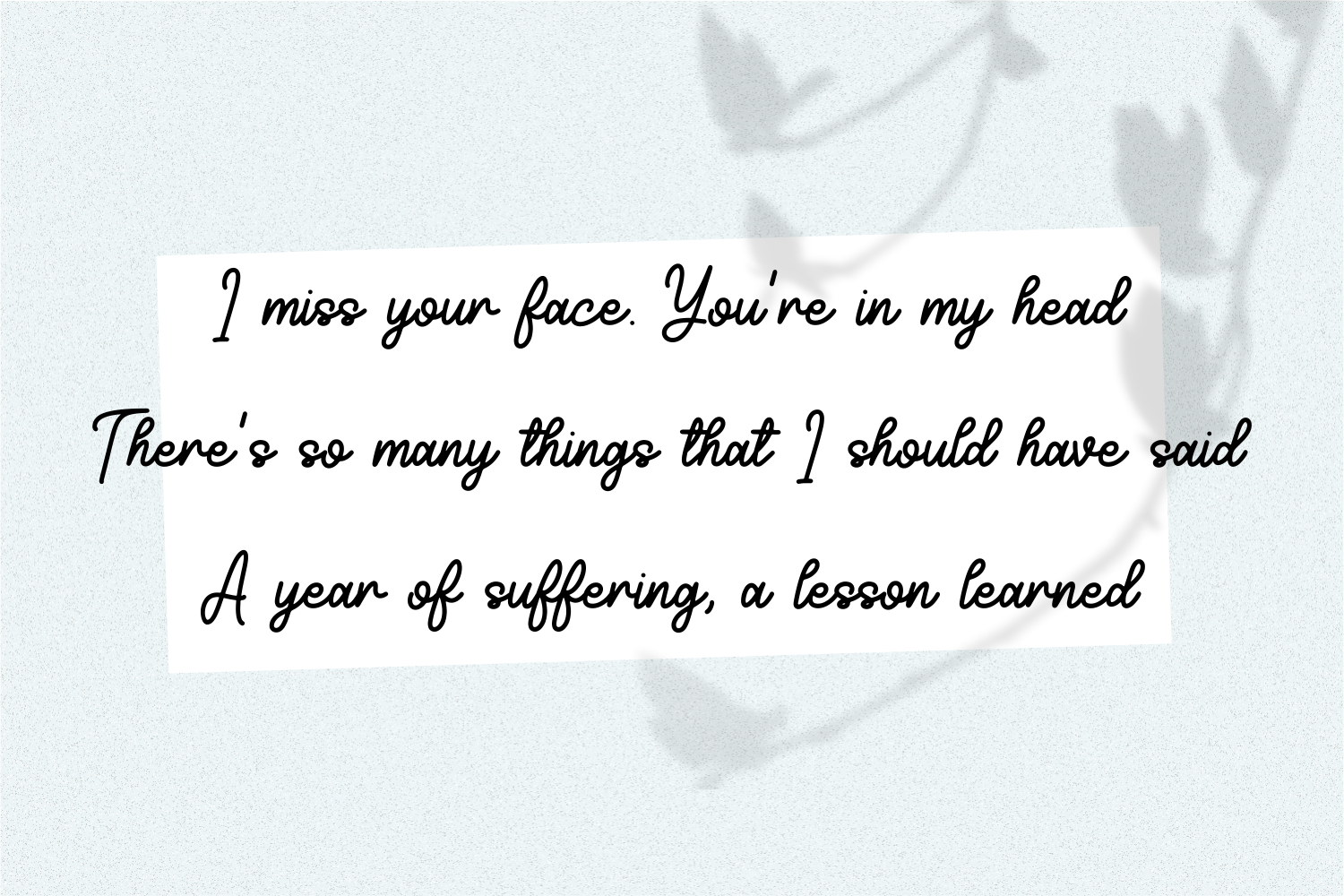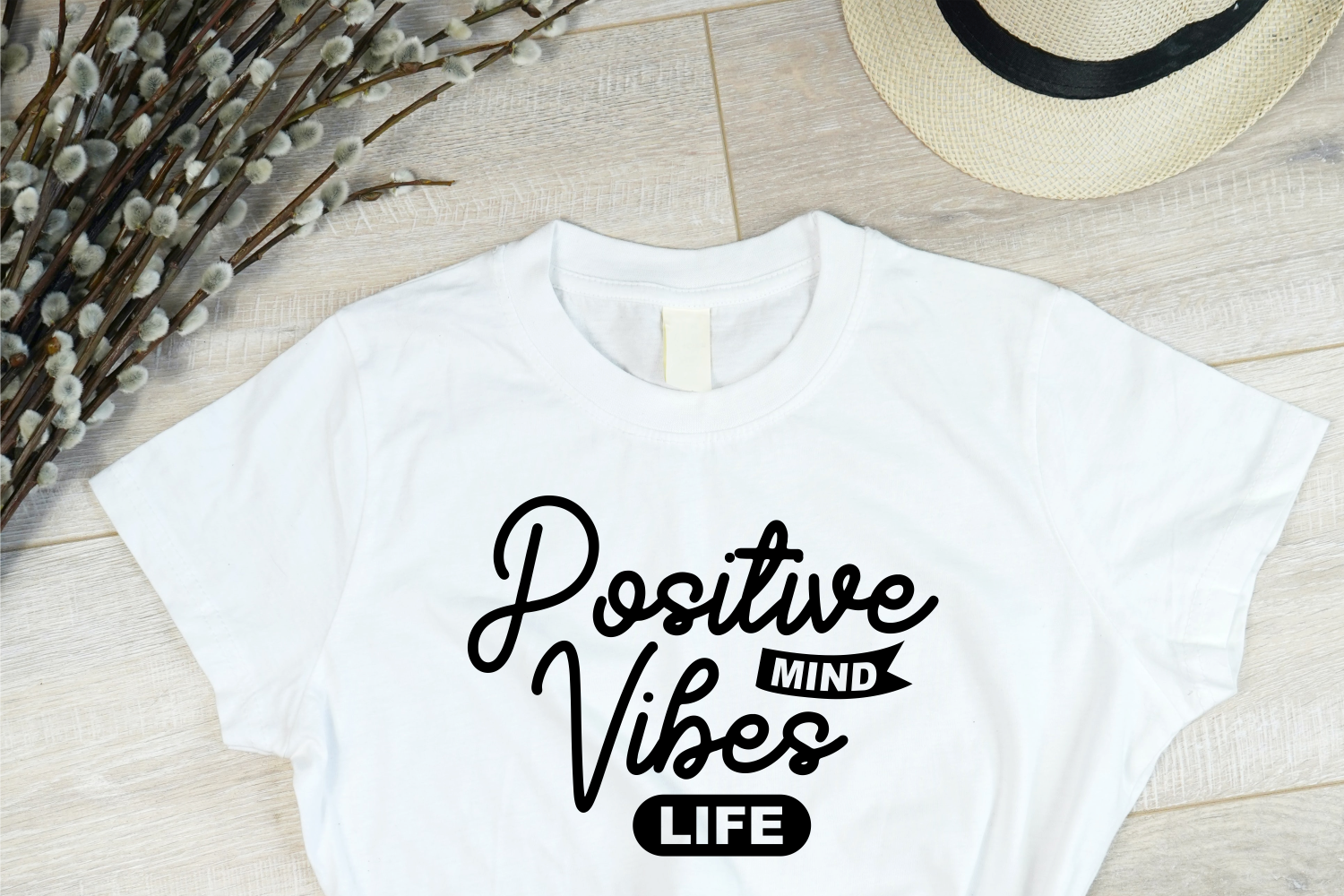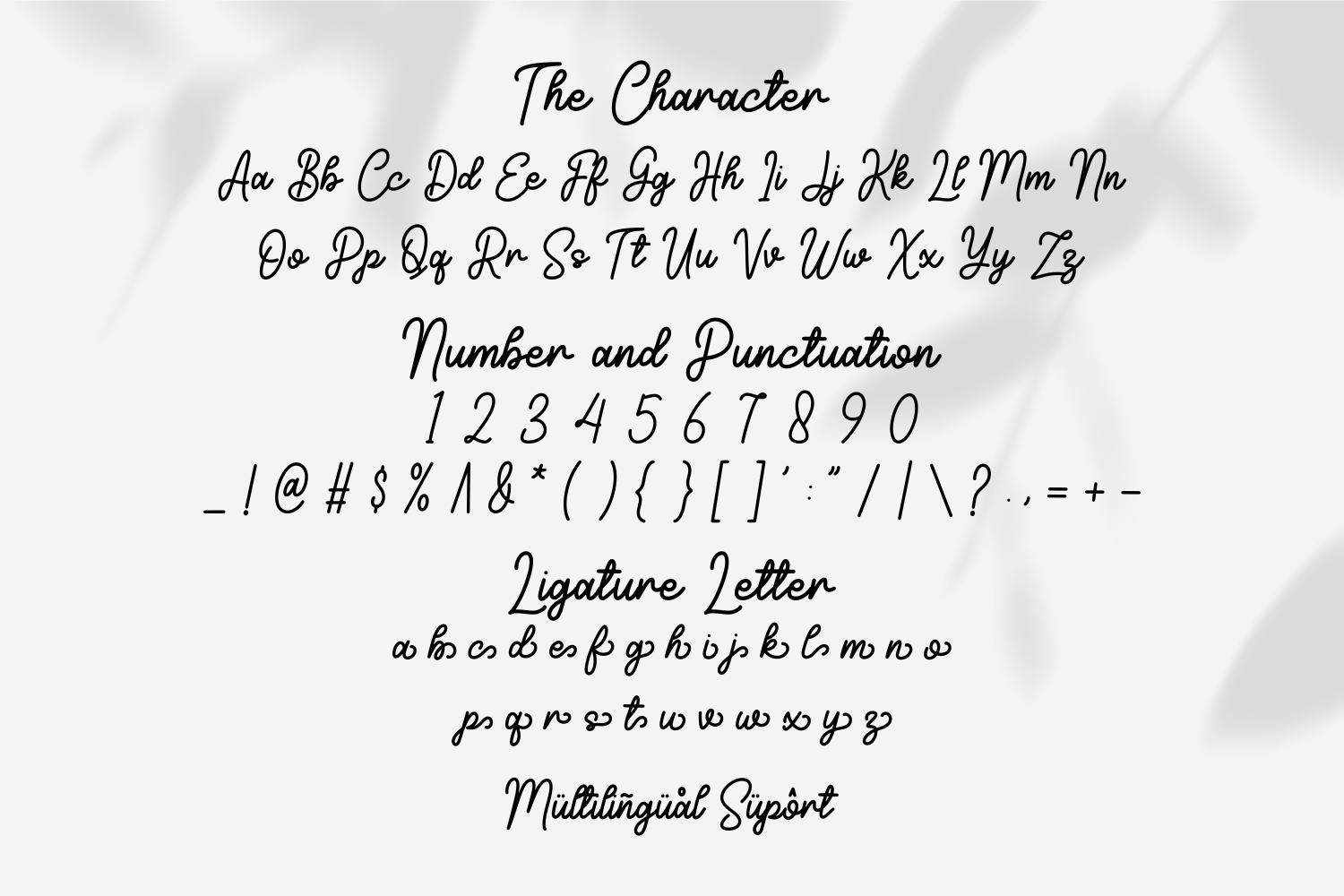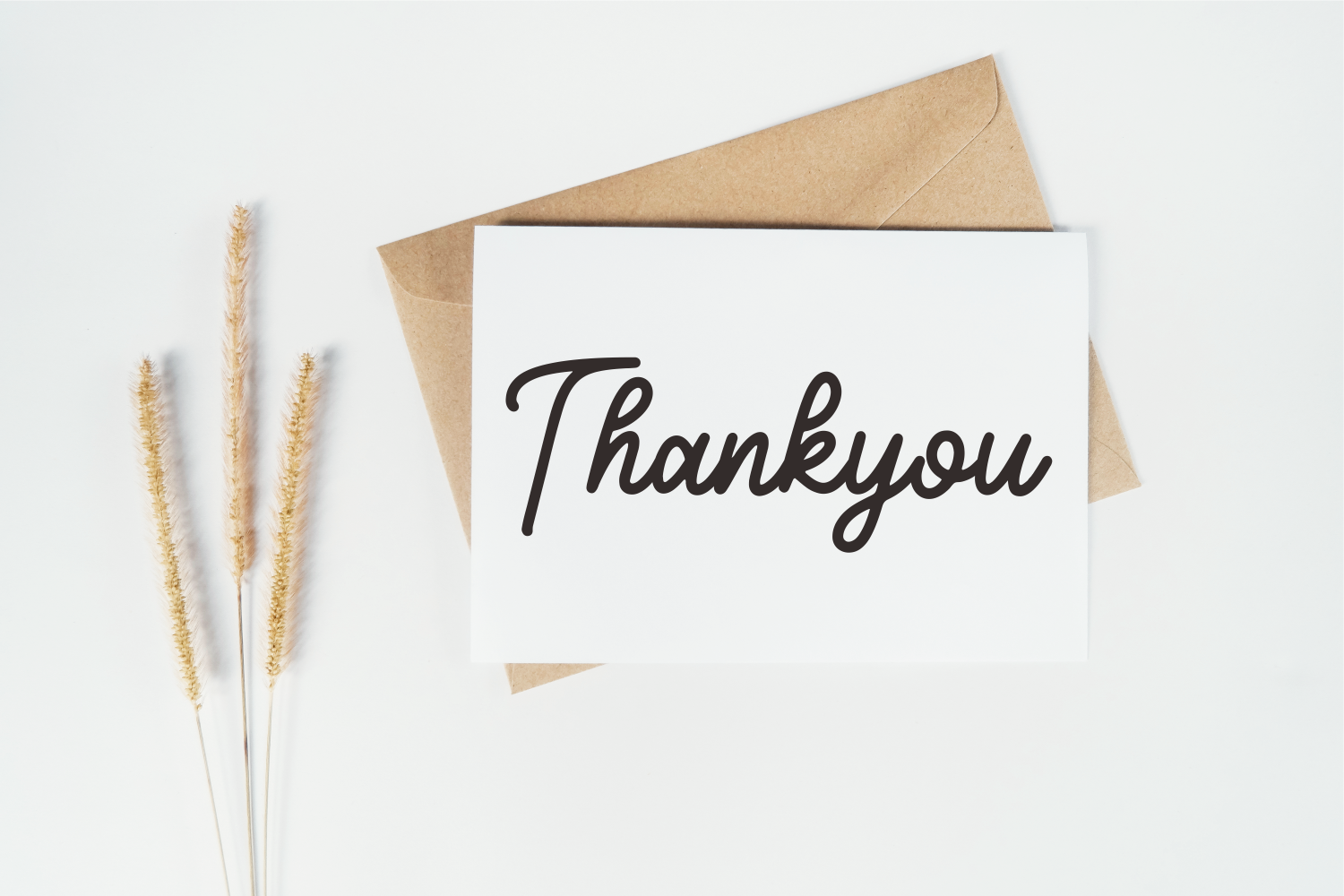
Honey and Friends Font
Honey and Friends Script Font is a fancy and elegant handwritten font created to impress your audience and make your branding shine. Make your projects dance with this elegant and wonderful font wherever you use it. Use it for your headings, logos, ads, printed quotes, packaging, and even your website or social media branding.